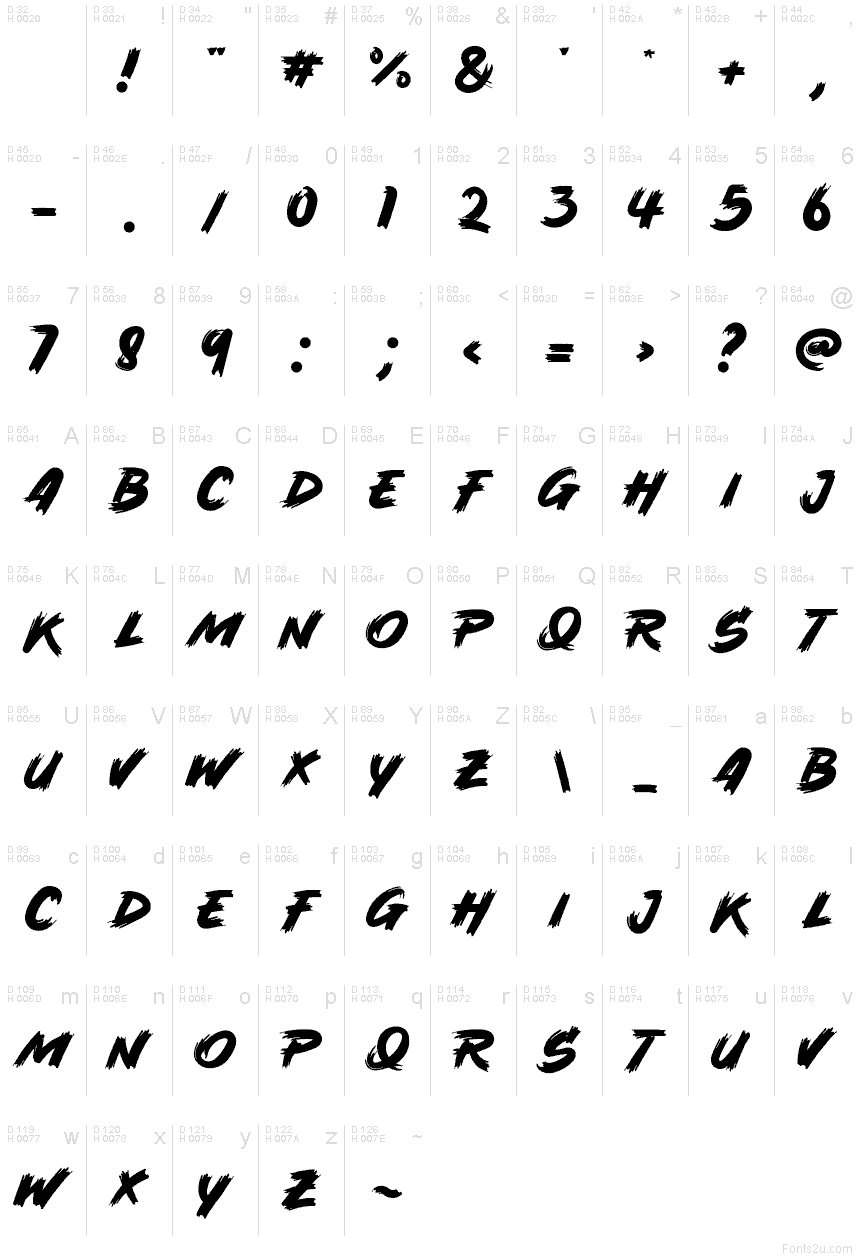
Supernova font by Mocha Frappuccino is a free brush typeface. When you need loud, fast energy without sacrificing readability, its slanted strokes and torn-bristle edges do the heavy lifting. Letters feel hand-slashed-inky, streaked, and slightly compressed-so headlines punch through clutter while still scanning clean at a glance.
Using Supernova, bold statements snap into focus for sports posters, festival flyers, action game covers, YouTube thumbnails, streetwear drops, and album art. The tight rhythm and chunky weight make short titles hit hard, while the rough texture adds grit without muddying the forms. Pair this free font with a light, neutral sans for body copy and let Supernova carry the shout.